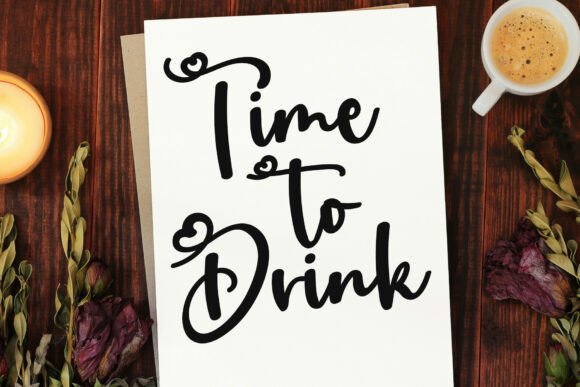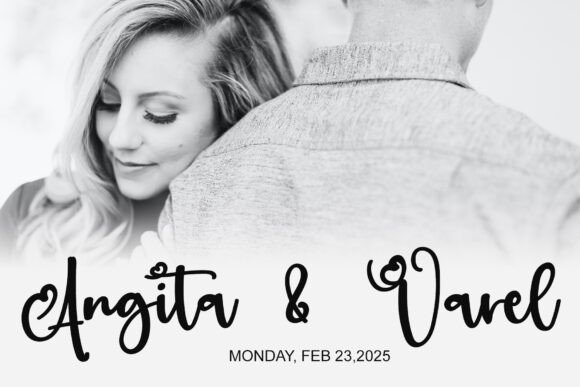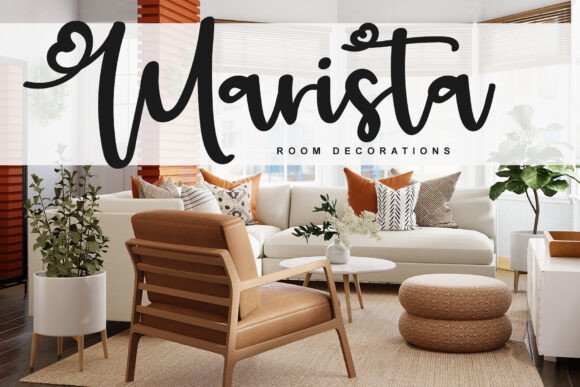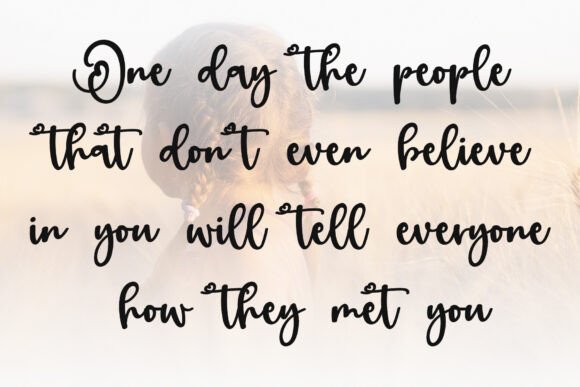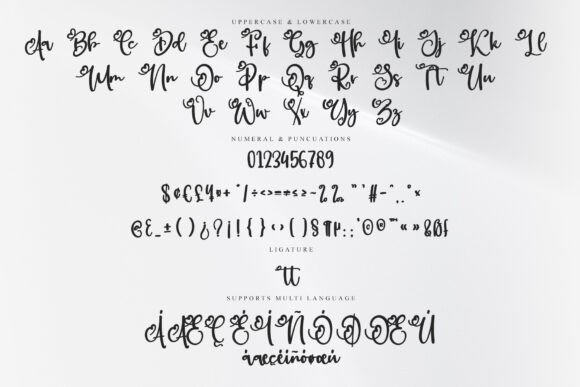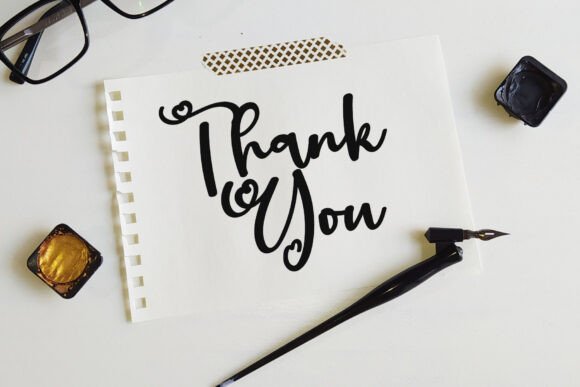
Bring Your Designs to Life with the Magic of Beloved January Font
Have you ever found yourself staring at a blank page, waiting for the perfect font to bring your creative idea to life? It’s that moment of excitement and frustration, when the right typography can make all the difference. Whether you’re a seasoned designer or a DIY enthusiast, finding the perfect font can be a challenge.
That’s where the Beloved January Font comes in – a beautifully crafted handwritten font designed to add a touch of elegance to your designs. With its unique flair and sophistication, this font is perfect for adding a personal touch to your Instagram posts, blog articles, or DIY projects. Whether you’re a designer looking to elevate your portfolio or a creative seeking to add some magic to your work, the Beloved January Font is a valuable addition to your toolkit.
Beloved January Font Key Features
- Font Family: Beloved January, a modern calligraphy script font.
- Unique Characteristics: Elegant, cursive, and handwritten feel with subtle flourishes and swashes, ideal for creative and romantic designs.
Beloved January Font Review
Overall, I think the Beloved January font is a unique and charming addition to any design project. Here are some aspects that I think work well:
- ✨ The font’s vintage and romantic aesthetic is perfect for projects that require a touch of nostalgia.
- ✨ The wide range of weights and styles allows for a high degree of customization and flexibility.
- ✨ The font is highly legible, making it suitable for both body text and display text.
However, there are some limitations that designers should be aware of:
- ⚠️ The font’s design may not be suitable for modern or minimalist projects, as it has a distinctly ornate feel.
- ⚠️ Some characters may not have a consistent or high-quality design, which can be jarring in certain contexts.
- ⚠️ The font’s size and weight may not be compatible with all operating systems or devices.
Overall, I think the Beloved January font is a solid choice for designers who want to add a touch of elegance and sophistication to their projects. While it may not be suitable for every project, it’s a great option for those who are looking for a unique and charming font.
Beloved January Font Practical Application Guide
The Beloved January font is ideal for creating elegant and sophisticated designs, such as:
- Book covers and magazine layouts
To get the most out of the Beloved January font, consider the following tips:
- Pair the font with a clean and simple design to create a balanced look.
- Use the font in combination with high-quality images to create a professional look.
Alternatives to Beloved January Font
Playfair Display is an elegant, high-end serif font ideal for luxurious branding, magazine covers, and high-end advertising. It features intricate details and swashes, making it perfect for creating a sense of sophistication and glamour. Compared to Beloved January Font, Playfair Display is more ornate and luxurious, while Beloved January Font is more minimalist and modern.
Carolyna Pro is a beautiful, modern script font perfect for creative branding, invitations, and packaging design. It features a mix of elegance and playfulness, making it suitable for a wide range of design applications. Compared to Beloved January Font, Carolyna Pro is more expressive and dynamic, while Beloved January Font is more straightforward and clean.
Does Beloved January support Unicode characters and languages?
Yes, Beloved January supports a wide range of Unicode characters, including Latin, Cyrillic, and Greek alphabets, as well as various symbols and punctuation marks. However, please note that support for non-Latin languages may vary depending on the font’s design and the specific characters required.